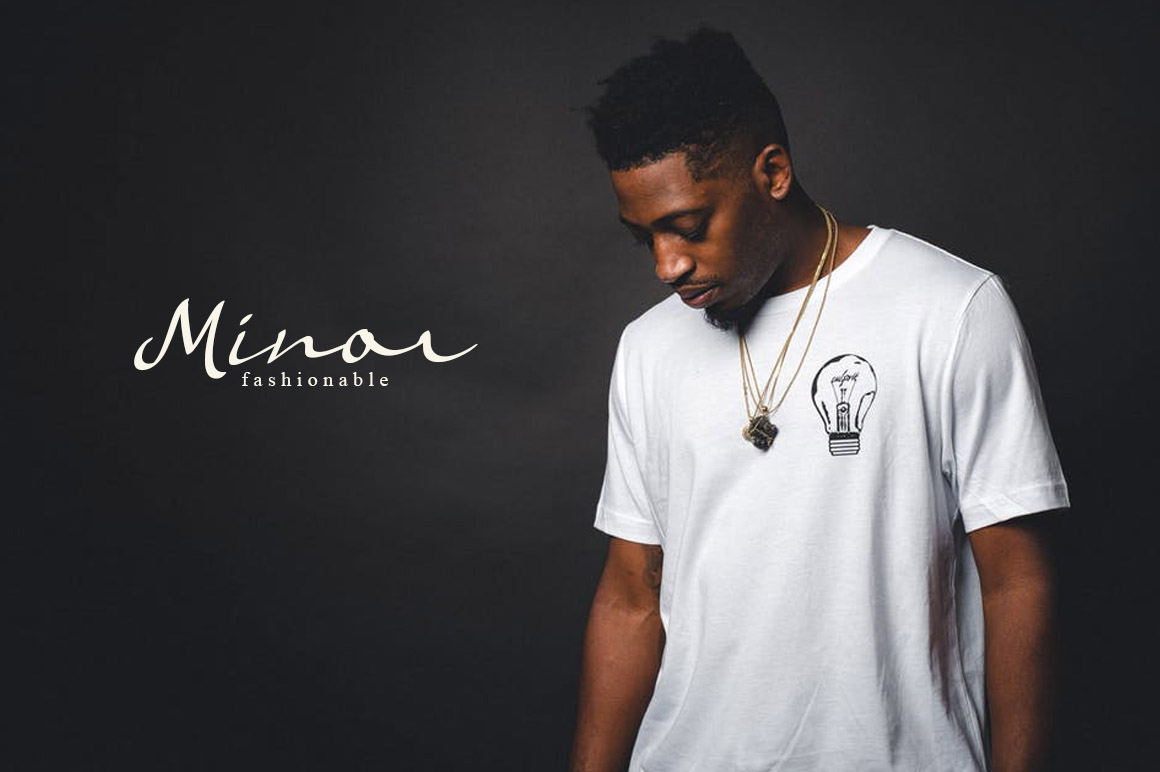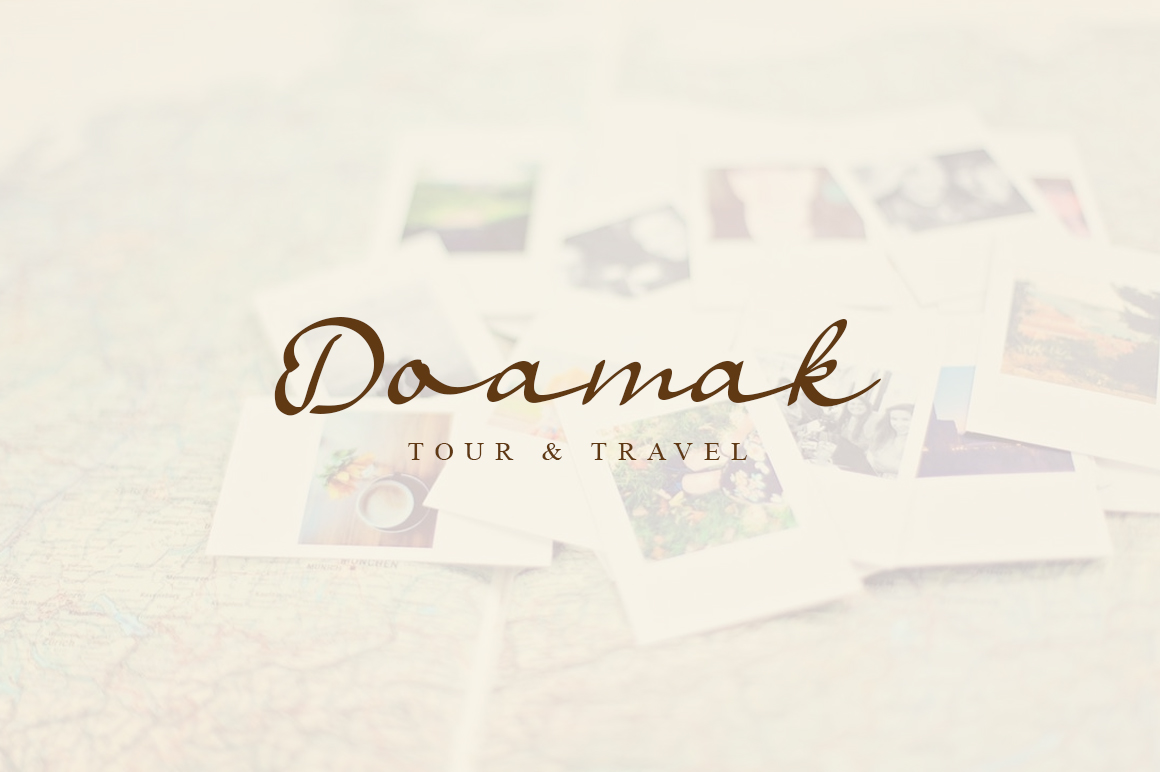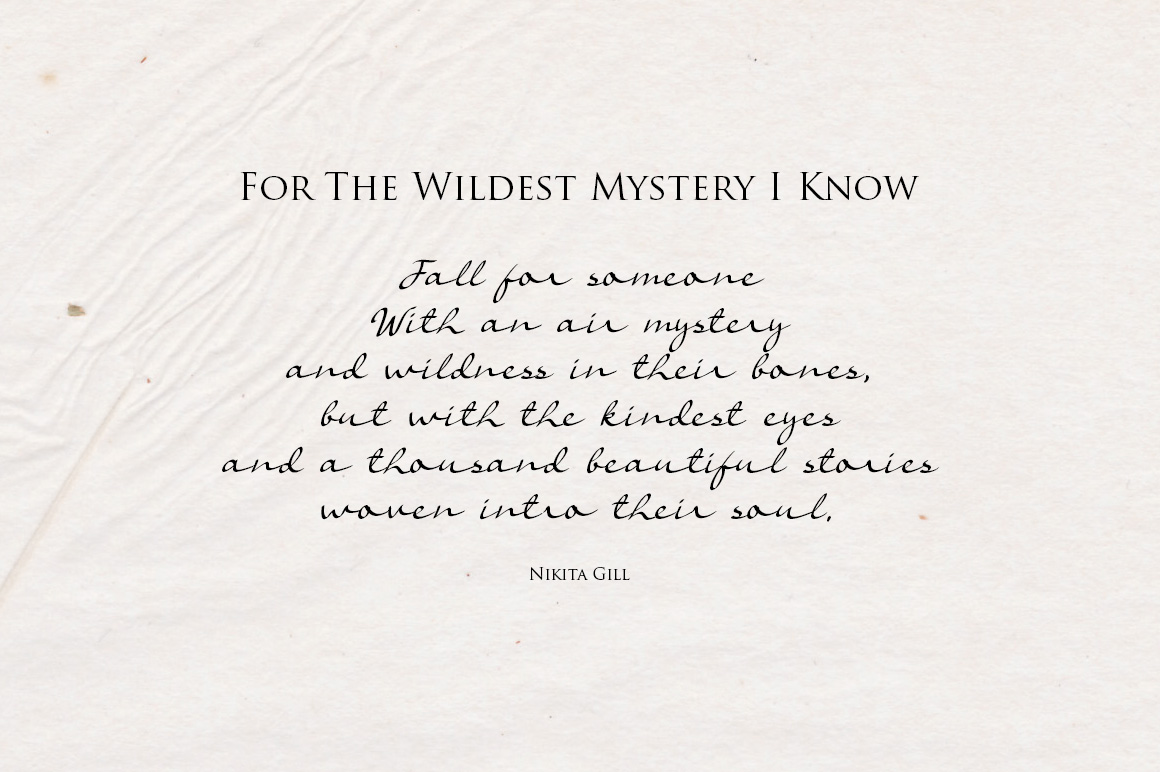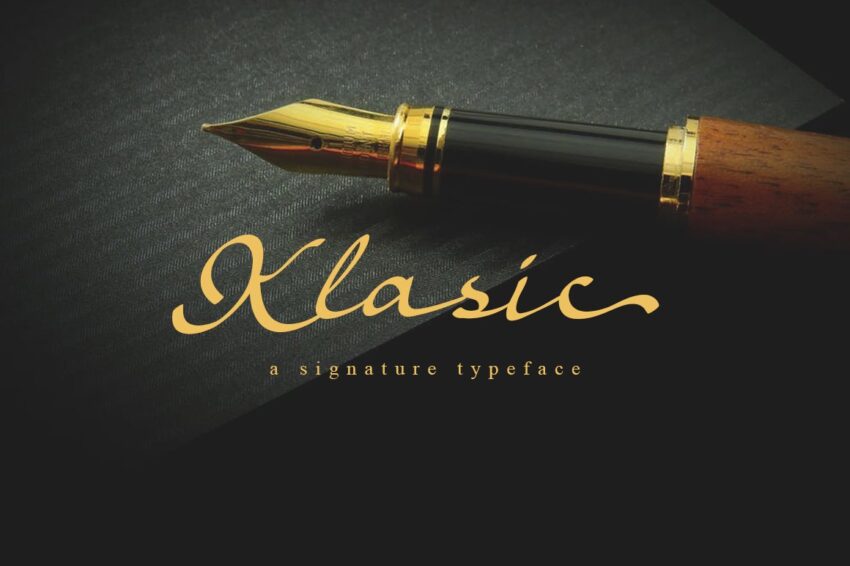
Klasic Script is a beautiful handmade script font, inspired by vintage calligraphy and fresh, current styles of typeface.
Klasic is thick and attention grabbing, making it ideal for signature and display designs .